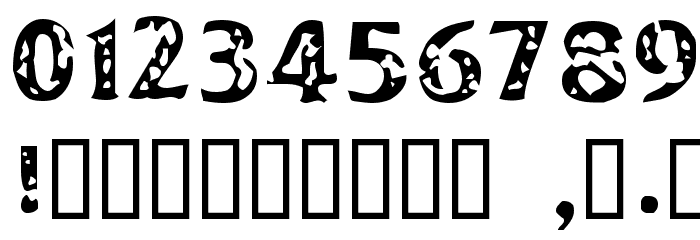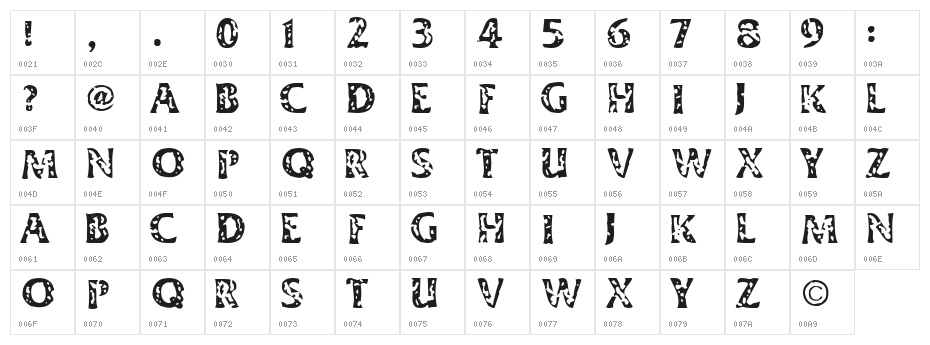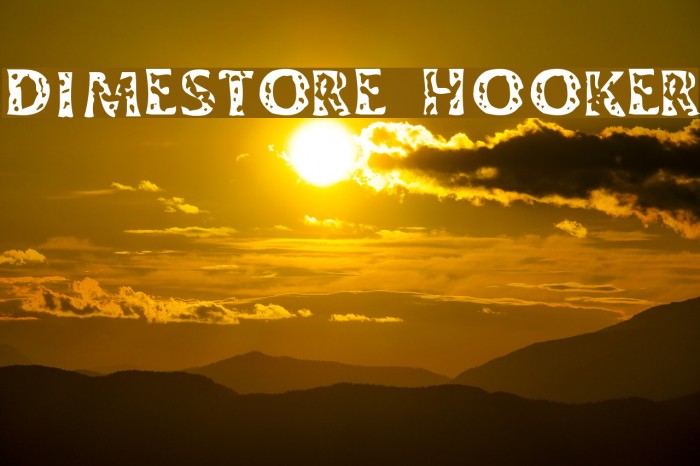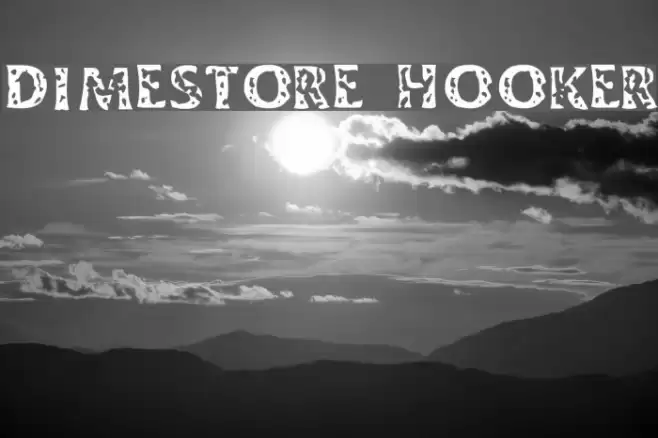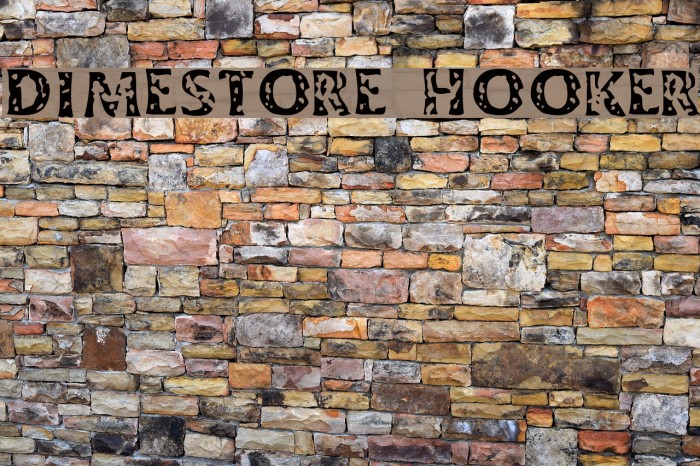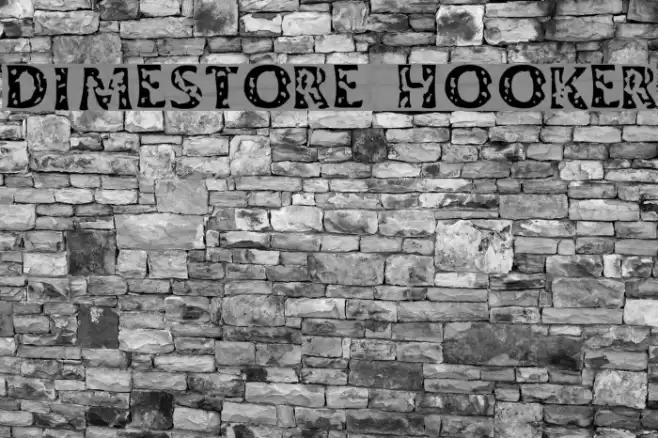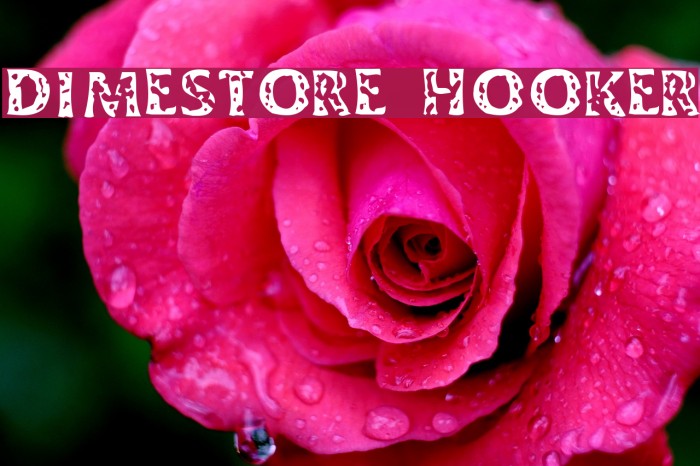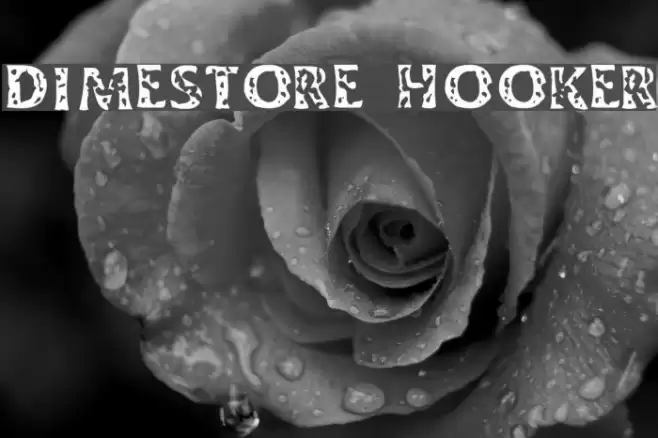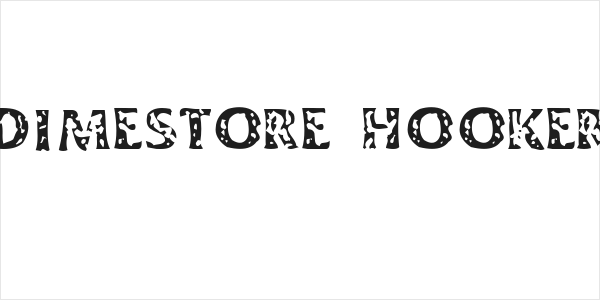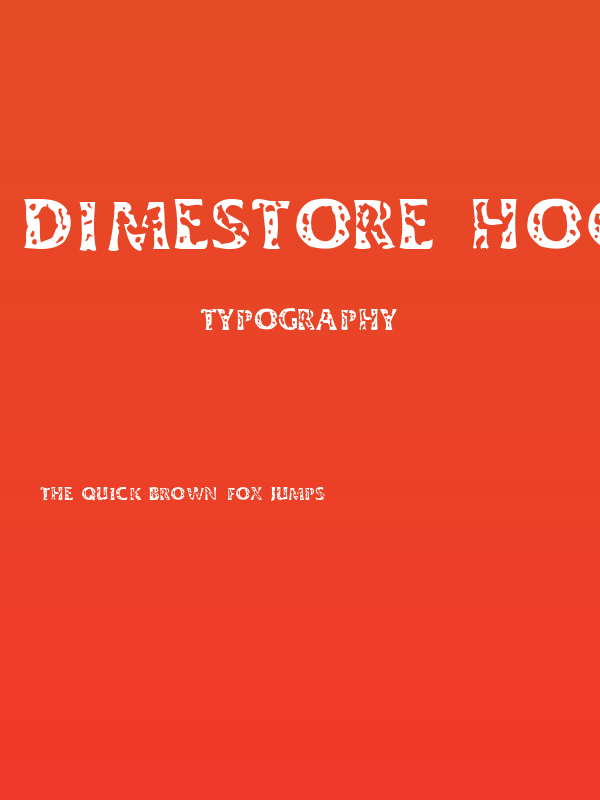
Dimestore Hooker Font
This font features a bold and decorative style with a unique, distressed texture that gives it a playful and edgy appearance. The characters are designed with irregular cutouts and patterns, creating a dynamic and eye-catching look. The uppercase and lowercase letters maintain a consistent style, while the numbers and special characters complement the overall design. This font is ideal for projects that require a standout, artistic touch, such as posters, album covers, or themed events. Its distinct appearance makes it suitable for creative and unconventional applications.
| Proposed Projects | Posters, album covers, themed events, creative branding. |